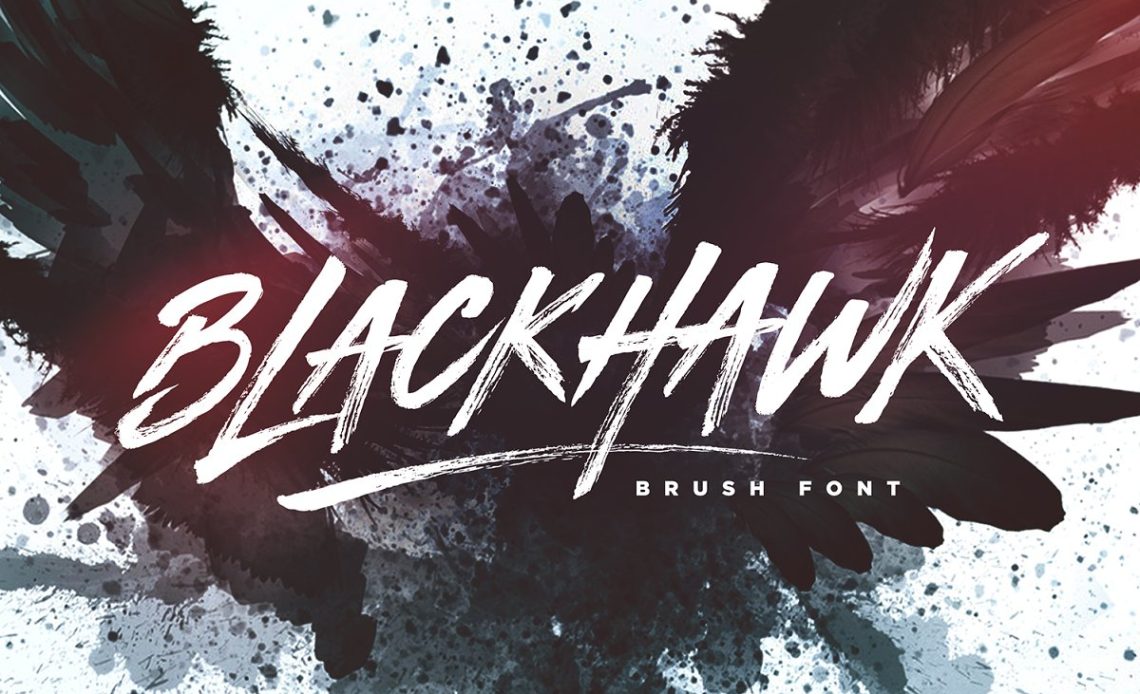
Introducing BLACKHAWK Brush Font, the ultimate font for lettering enthusiasts! Created by Sam Parrett, this font family is a game-changer in the world of typography. BLACKHAWK is a supercharged, street-wise brush font that embodies energy and vitality. With its quick strokes and sharp details, BLACKHAWK is the perfect choice for designers who want to deliver an unapologetically loud and fast-paced message.
Whether you need a bold logo, catchy apparel designs, inspiring quotes, product packaging, or any other design that requires a typographic turbo-boost, BLACKHAWK is the font you need. This brush font is available in three font files, each with unique features that cater to your design needs.
First, we have BLACKHAWK, an all-capitals brush font with a complete set of alternate A-Z characters. By switching between upper and lowercase letters, you can access the alternates, allowing for more creative text layouts. Second, we have BLACKHAWK Italic, a slanted version of the regular font that adds a faster movement to the characters. Finally, we have BLACKHAWK Swashes, a bonus set of 11 swashes and 4 paint-splatters, which can be accessed by typing any A-O character with this font.
In conclusion, BLACKHAWK Brush Font is an excellent choice for designers who want to make a bold statement with their typography. It's the perfect combination of energy, creativity, and versatility, making it an essential tool in any designer's toolbox. So why wait? Download BLACKHAWK Brush Font today and take your designs to the next level!